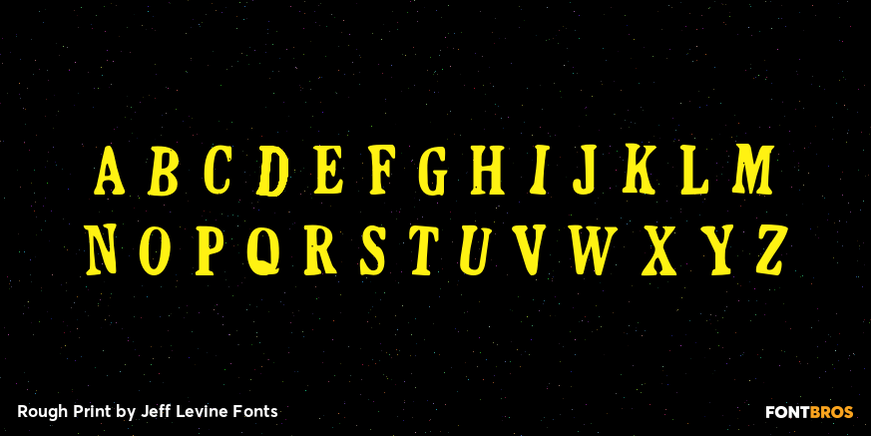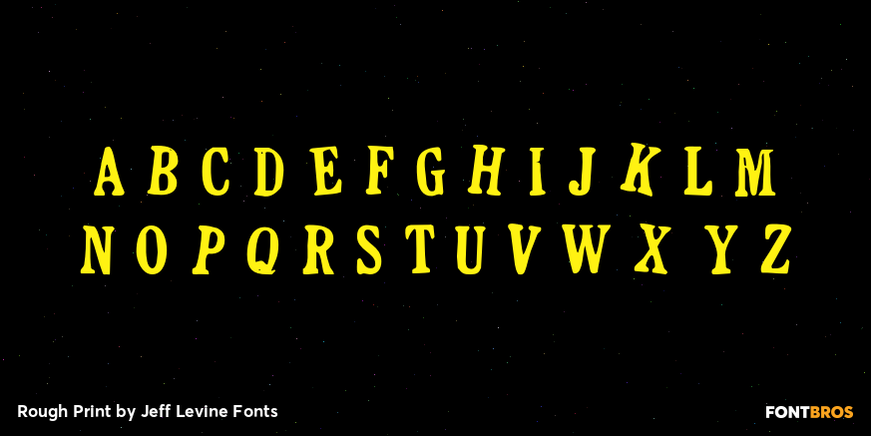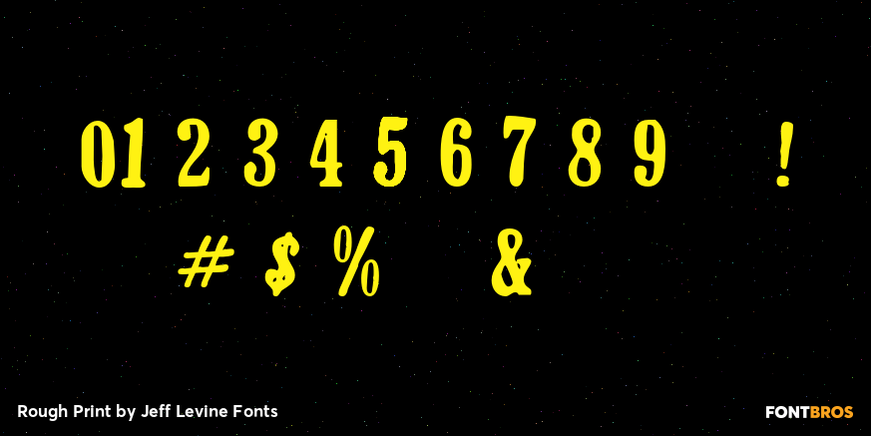
Rough Print
The Superior Marking Equipment Company was originally located in Chicago, Illinois and over the years produced a line of both commercial and toy rubber stamp printing sets which were used for making signs, posters, tickets and other printed items.
Rough Print JNL reproduces the scanned images printed from one of the toy rubber stamp sets. The sample characters were smaller than one half inch in height and were further reduced during scanning.
This gives the end result of a typeface which looks like rubber stamp imprints at small sizes, and very angular, distorted, somewhat grunge type when printed at larger sizes.
There is a limited character set consisting of alphabet, numerals, some punctuation and currency symbols. No kerning was added to keep the hand-made appeal.
Rough Print JNL is an all caps font with the letters and numbers jogged randomly on both the caps and lower case keystrokes. For a similar design with lower case, Amateur Printer JNL is recommended.